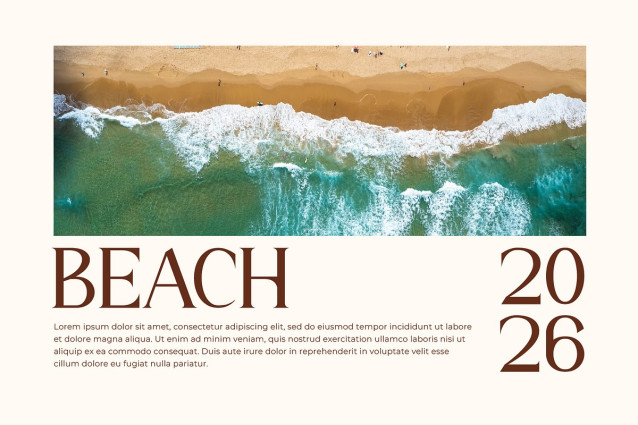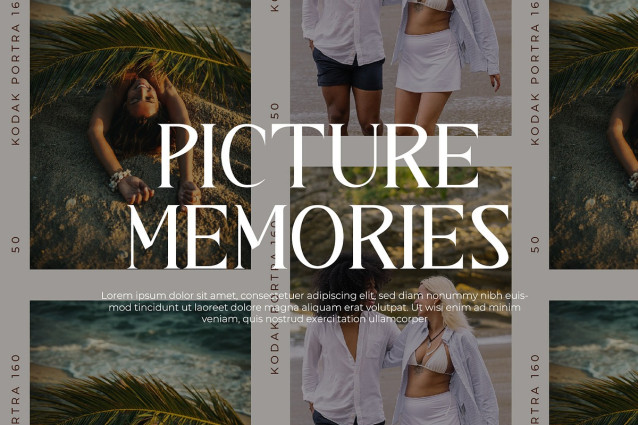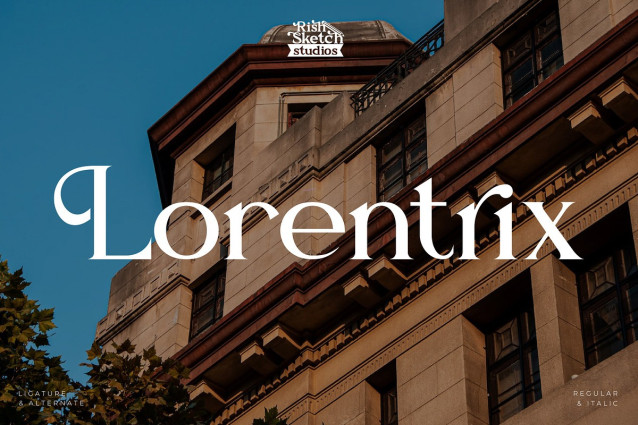
Lorentrix Font
Lorentrix Font – Serif Typeface Font, from Rishsketch Studios, is a premium Serif Typeface Font, perfect for any project that requires a distinctive, and premium feel.